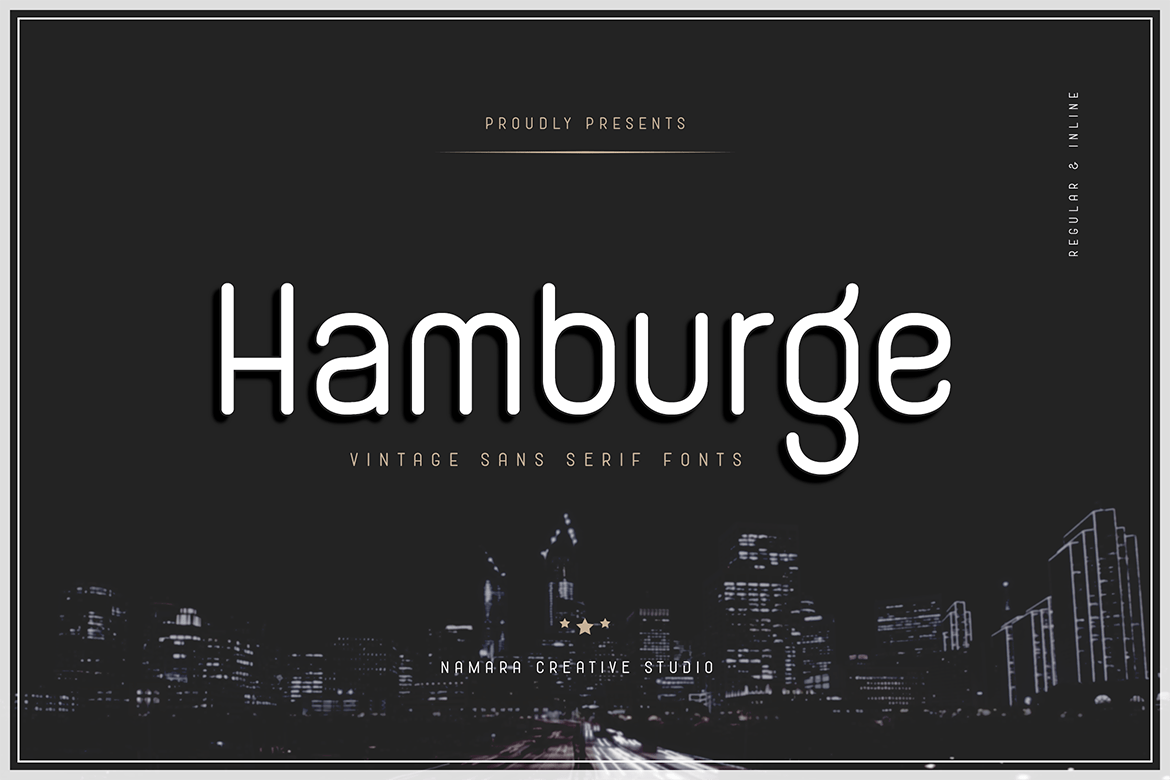
Hamburge Font
Hamburge Basic Sans Font is a classic, clean, and versatile sans-serif font inspired by minimalism contemporary font. Included uppercase, lowercase, numeral, ligatures, alternates and multilingual support. Perfect for headlines, product package / labels, photography, watermark, logos, or any project that requires a classic sans serif.